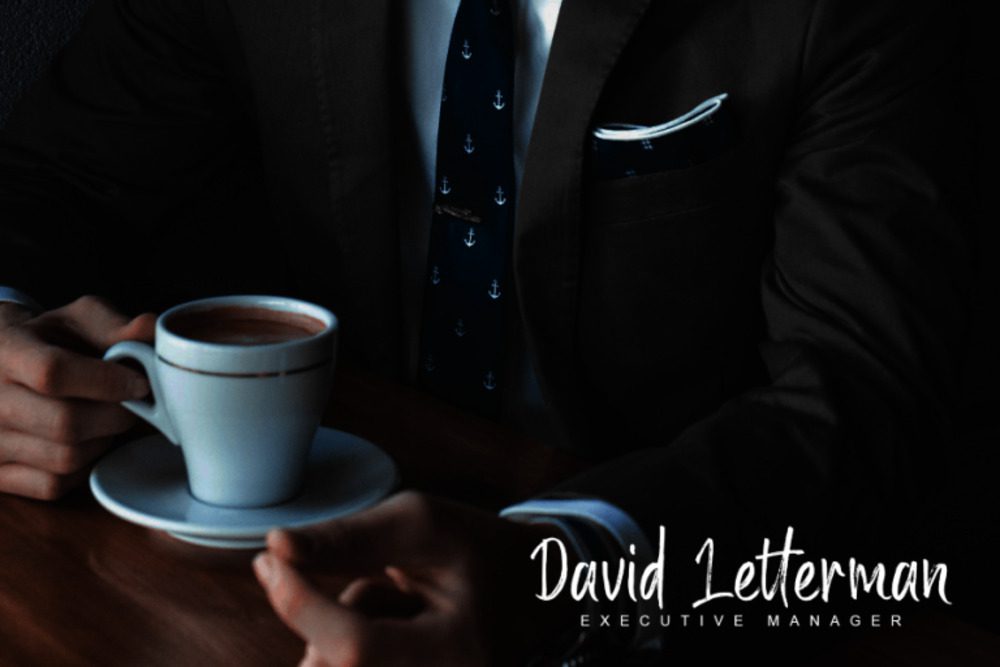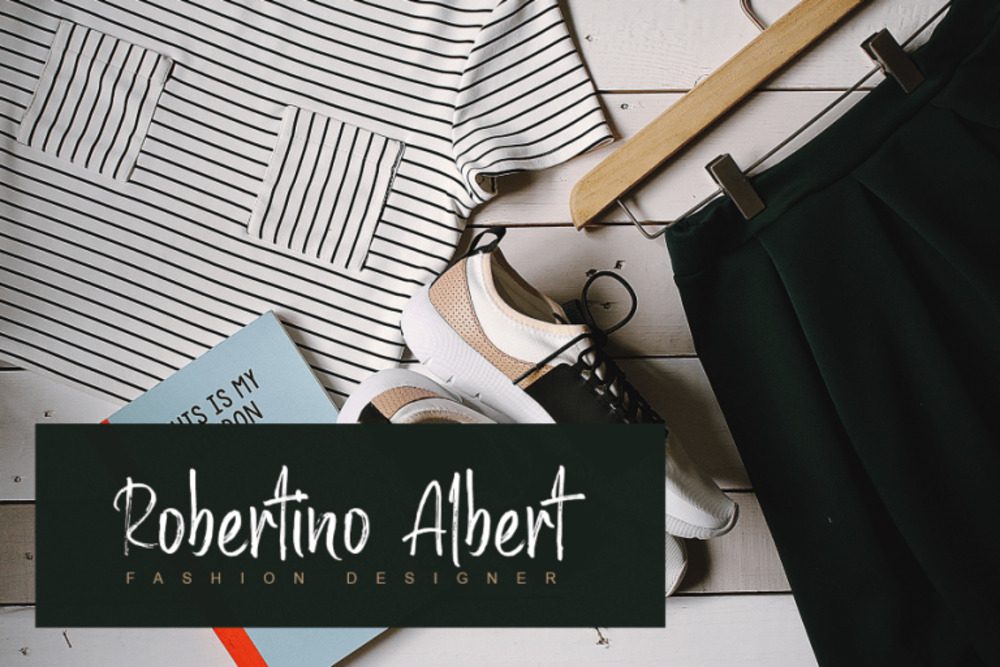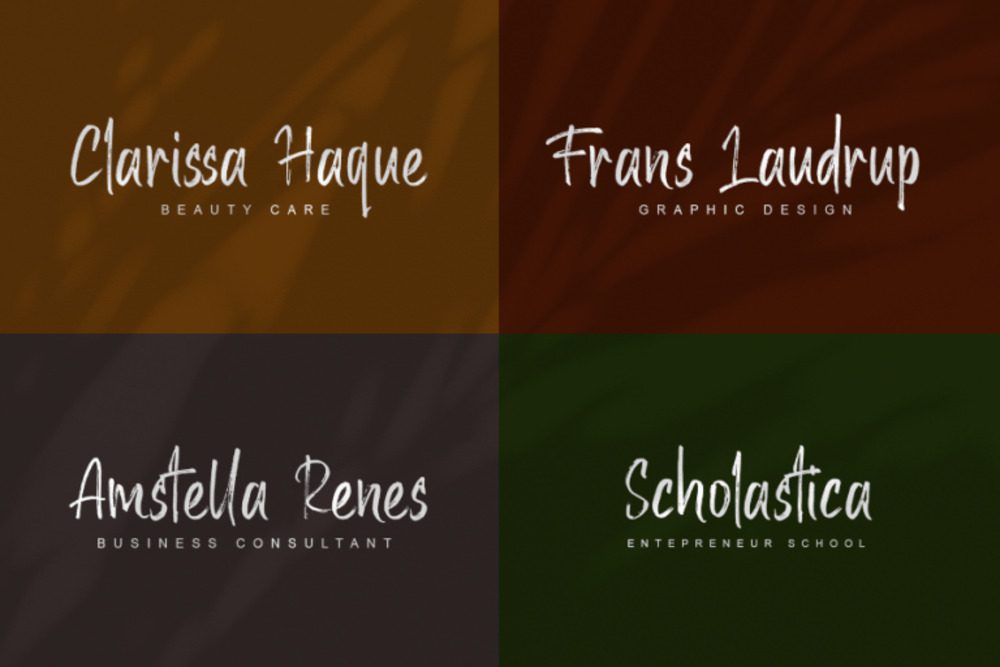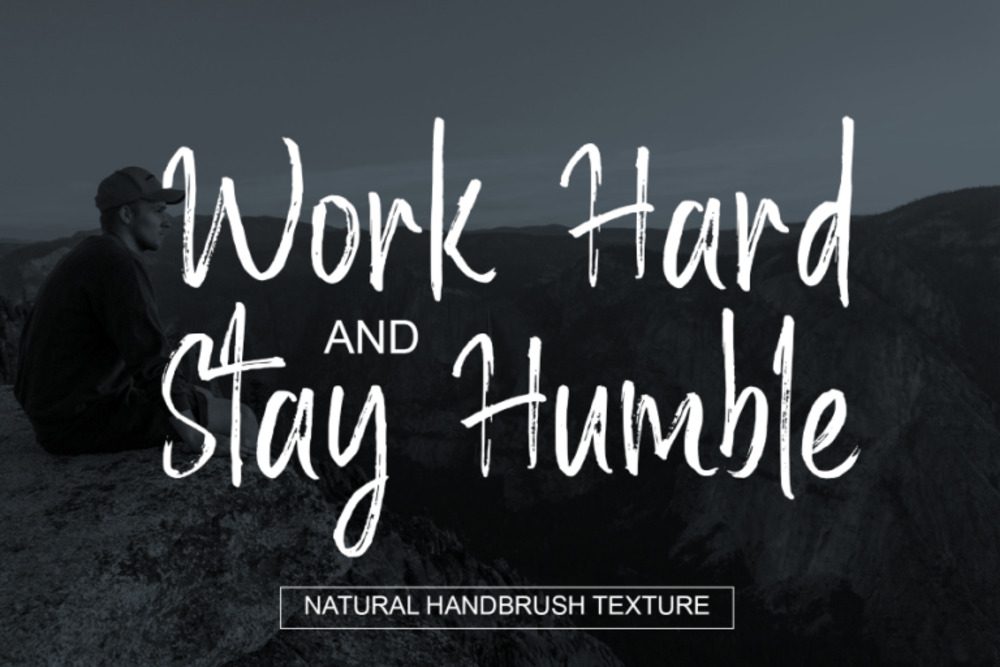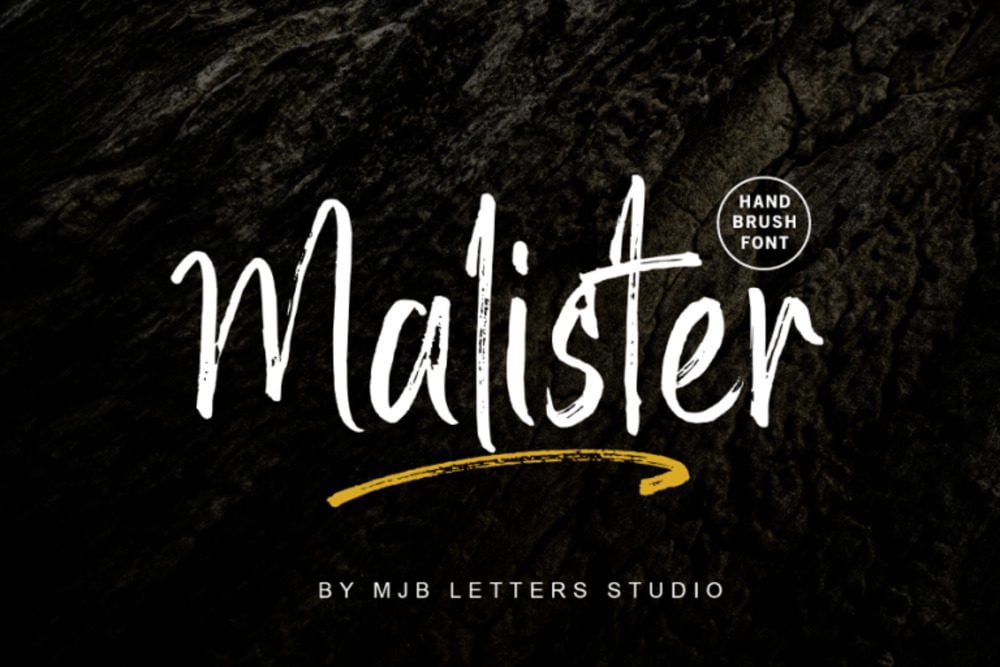
Malister Font
Malister is a bold and stylish script font that combines modern flair with classic elegance. Featuring sweeping curves and dynamic strokes, it’s perfect for logos, fashion branding, and product packaging. Its expressive, handcrafted feel adds personality and sophistication to any design. Malister stands out with its versatile charm, making it an ideal choice for both bold statements and refined details.